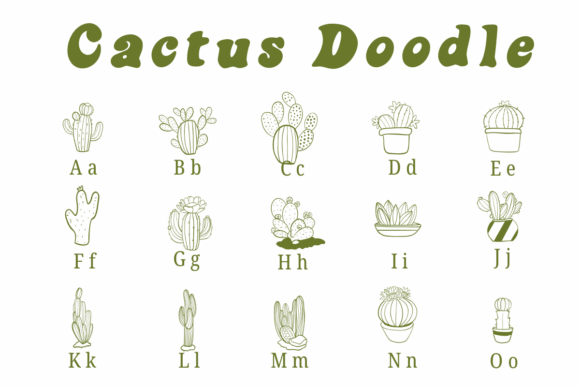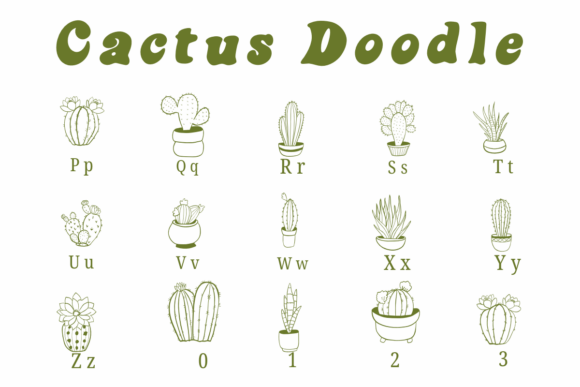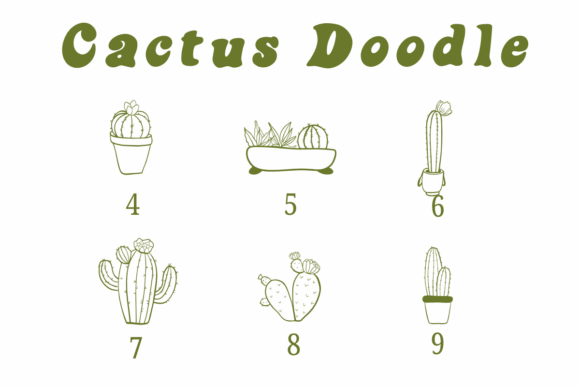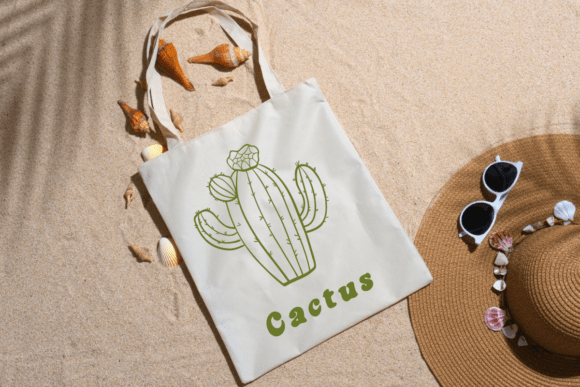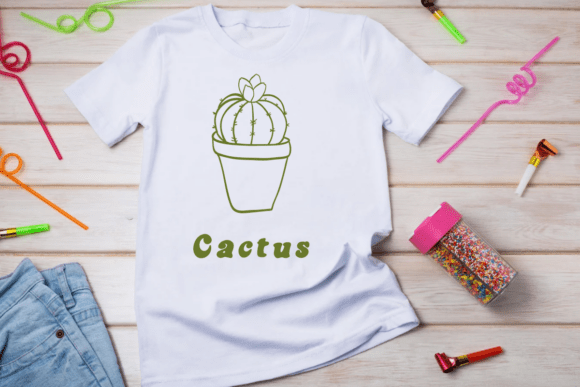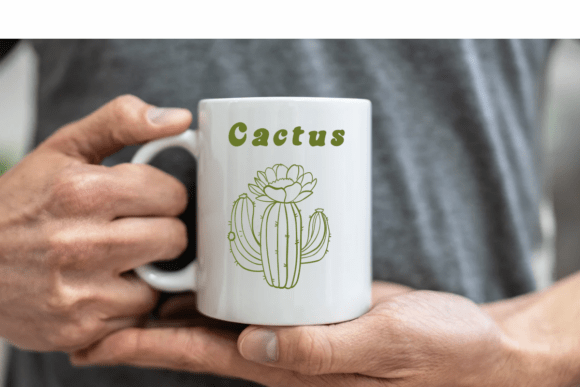
The Perfect Brushstroke for Your Next Creative Project
Have you ever been brainstorming ideas for a unique wedding invitation or a handmade decoration, only to be struck by a burst of creativity and a rush of excitement? That’s exactly what happens when you stumble upon the right tool to bring your vision to life. For designers, artists, and crafty individuals, the perfect brushstroke can be the difference between a good project and a great one.
Enter the Cactus Doodle Font, a beautiful dingbats font with a sketched style that adds a personal touch to any design. Whether you’re creating a logo, a DIY project, or a wedding invitation, this font is the perfect addition to enhance your creative vision. Its sketched style gives your design a unique and handmade feel, setting it apart from the ordinary.
Cactus Doodle Font Key Features
- Font Family: Cactus Doodle is a unique, hand-drawn font family that includes multiple styles and weights.
- Character Count: The font family includes a vast range of characters, including uppercase and lowercase letters, numbers, punctuation, and special characters.
- Unique Characteristics: Cactus Doodle features a playful, whimsical design with intricate details and texture, making it perfect for adding a touch of personality to designs.
Cactus Doodle Font Review
Overall, I’m impressed with the Cactus Doodle Font. The quirky, playful vibe is perfect for adding a touch of whimsy to any design project. ✨ The font’s unique, hand-drawn style makes it stand out from more traditional sans-serif fonts.
- What works well: ✨
- Unique, hand-drawn style adds character to designs
- Perfect for adding a touch of whimsy to projects
- Works well in a variety of contexts, from logos to social media graphics
- Limitations: ⚠️
- May not be suitable for more formal or professional projects
- Some characters may be difficult to read, particularly in smaller sizes
- Lack of a clear ‘bold’ weight may limit its use in certain contexts
While the Cactus Doodle Font is not perfect, I believe its unique style and versatility make it a great addition to any designer’s toolkit. With some careful consideration of its limitations, I have no hesitation in recommending it for a wide range of design projects.
Tips for Getting the Most Out of Cactus Doodle Font
For the best results, use the Cactus Doodle Font in a playful and whimsical context, such as for children’s party invitations or DIY crafts. Experiment with different font sizes, colors, and styles to create a unique look.
The Cactus Doodle Font is perfect for:
- DIY crafts and handmade gifts
- Whims
Alternatives to Cactus Doodle Font
Great Vibes is a modern script font that resembles a handwritten style. It’s perfect for creating a relaxed and casual atmosphere in designs. Great Vibes is more elegant and refined compared to Cactus Doodle Font, which has a more playful and quirky feel.
Alex Brush is a beautiful, handwritten script font that’s great for adding a touch of sophistication to designs. It’s more elegant and refined than Cactus Doodle Font and works well for invitations, quotes, and other creative projects.
Carolyna Pro is a modern, handwritten font that’s perfect for creating a unique and stylish look in designs. It’s more versatile than Cactus Doodle Font and works well for a variety of projects, from logos to posters.
Ostrich Sans is a modern sans-serif font that’s great for creating a clean and minimalist look in designs. It’s more formal and professional compared to Cactus Doodle Font, which has a more playful and casual feel.
3 Creative Project Ideas Using Cactus Doodle Font
Q: Are there any font weight variations available for the Cactus Doodle Font?
Yes, the Cactus Doodle Font includes multiple font weight variations, including Light, Regular, Medium, Bold, and Extra Bold. These variations can be accessed through the font’s dropdown menu or by using the font’s stylistic sets. The font’s weight variations can be used to create a range of visual effects and emphasis in your designs.